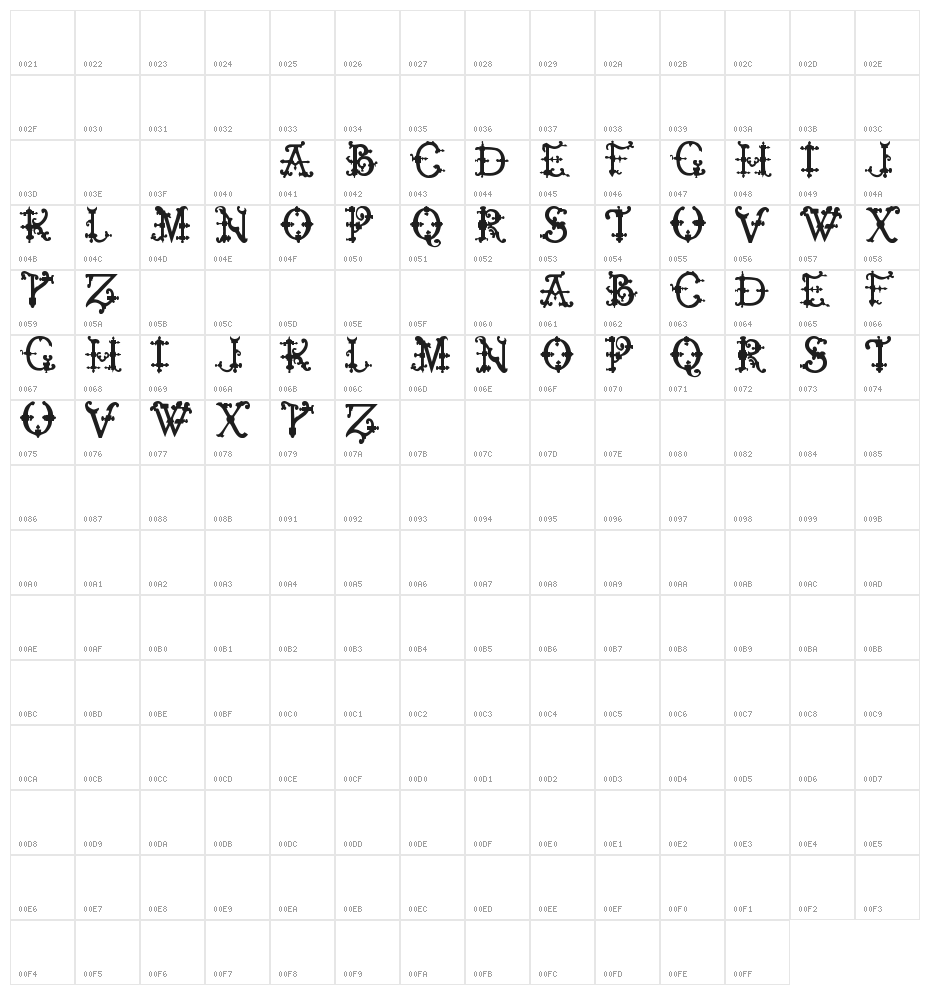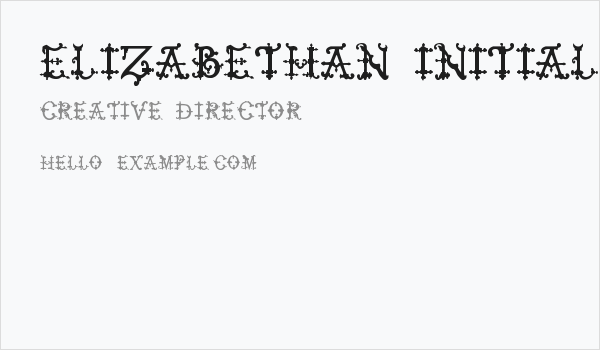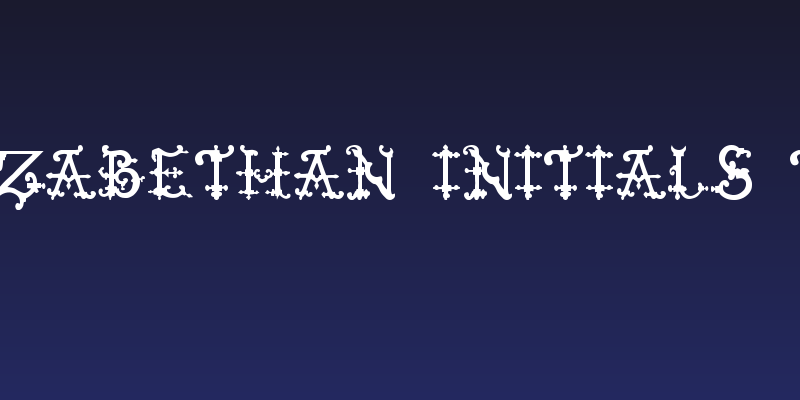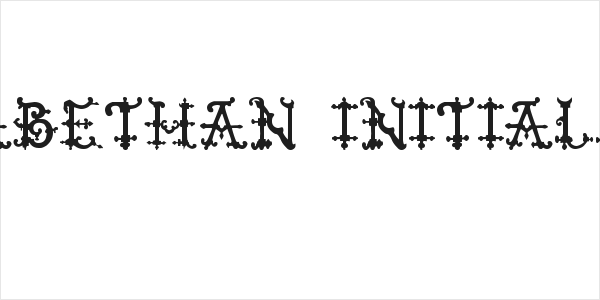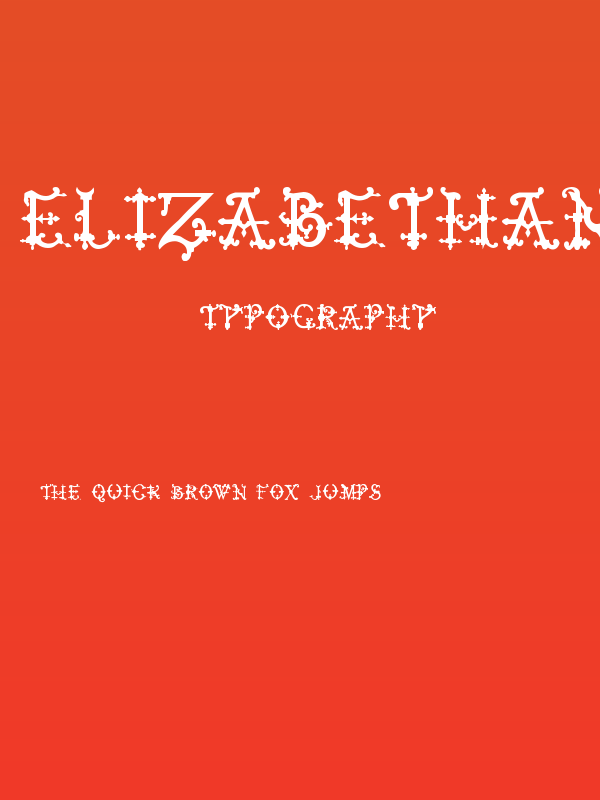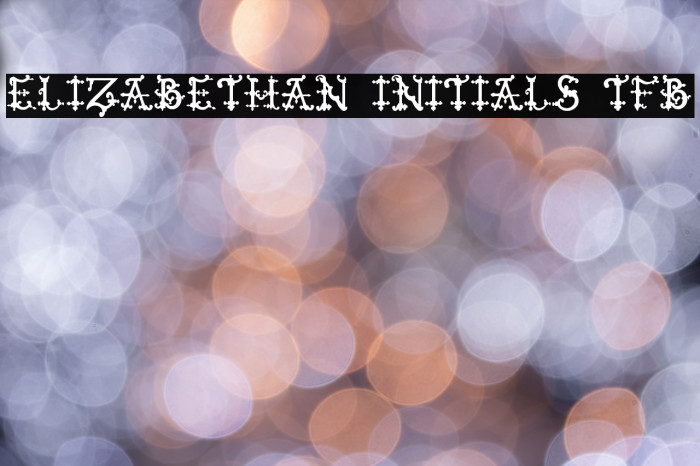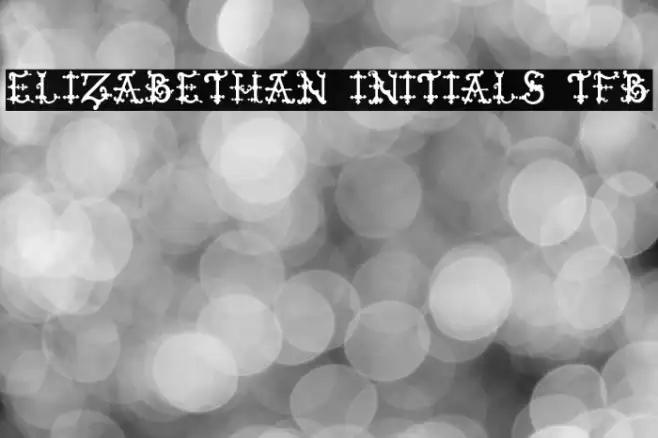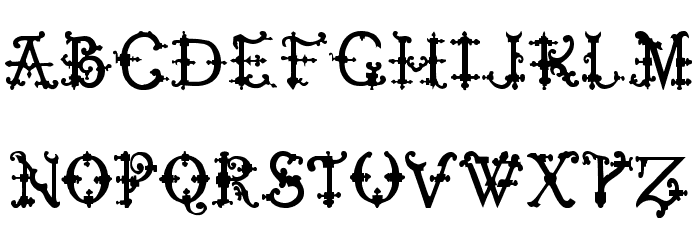
Elizabethan Initials tfb Font
Elizabethan Initials tfb Description
This font features an ornate and decorative style reminiscent of Elizabethan-era design. Each letter is embellished with intricate flourishes and embellishments, creating a sense of historical elegance and sophistication. The characters are bold and striking, with a high level of detail that captures the eye. The overall appearance is both regal and artistic, making it suitable for projects that require a touch of vintage charm. The font's unique style is ideal for creating standout headlines, invitations, or branding materials that seek to evoke a sense of tradition and grandeur.
| Proposed Projects | Ideal for wedding invitations, historical event posters, vintage branding, and decorative book covers. |